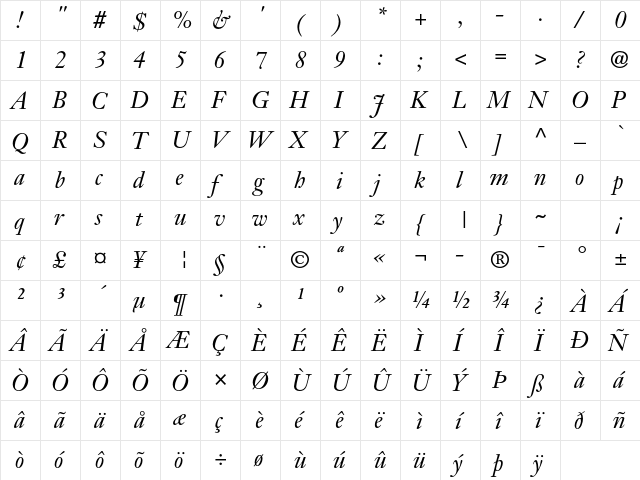
Janson Text LT Std 56 Italic Font Preview
| Style | 56 Italic |
| Designer | Nicholas Kis |
Design Context for Janson Text LT Std Typeface
Janson Text LT Std takes a measured approach to typography — its balanced proportions and neutral character make it a reliable workhorse for both digital and print work. The dynamic lean of this cut emphasises speed and emphasis in any layout. Its slender proportions lend an understated elegance to any composition.
Pro Tip: Try Janson Text LT Std for annotation and caption copy alongside an upright companion — the contrast in angle creates a dynamic but ordered typographic system.